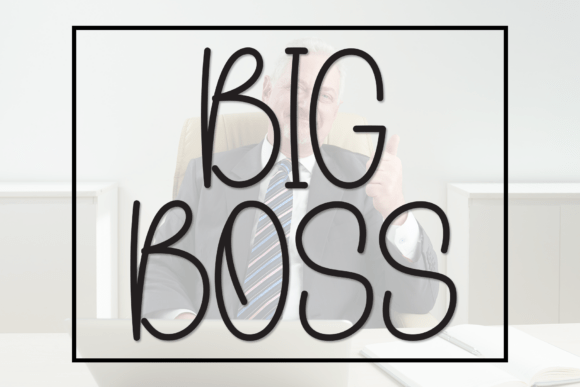
The Big Boss Font: A Game-Changer for Your Design Projects
I’ll never forget the time I was working on a branding project for a high-end architecture firm. My client was specific about wanting a font that exuded professionalism, yet had a personal touch. I scoured the internet, tried countless fonts, but nothing seemed to fit the bill. That was until I stumbled upon the Big Boss font. It was like a breath of fresh air – tall, authoritative, and oh-so-legible. In this article, I’ll share my love for this amazing display font, its features, and how to make the most of it in your design projects.
A Closer Look at Big Boss
Big Boss is a stunning display font designed with a clean, monolinear aesthetic. Its vertically elongated letterforms, consistent stroke weight, and smooth, rounded joins make it a perfect fit for corporate personal branding, modern business headers, architectural title blocks, and impactful editorial signage.
Here’s what I love about Big Boss:
• ✨ Clean and professional look: The font’s monolinear design gives it a sleek, modern feel that’s perfect for high-end branding projects.
• ✅ High legibility: Despite its elegant design, Big Boss remains highly legible, even at smaller font sizes.
• 💼 Versatile: This font is suitable for a wide range of design projects, from business headers to editorial signage.
And, of course, no font is perfect. Here are a few quirks to keep in mind:
• 🤔 Limited use of OpenType features: While Big Boss does offer some OpenType features, it’s not as extensive as some other fonts.
• ⚠️ May not work well with longer texts: Due to its elegant, display-focused design, Big Boss might not be the best choice for longer texts or body copy.
The Story Behind Big Boss
Big Boss was designed with the modern business professional in mind. Its creator aimed to craft a font that exuded professionalism, yet had a personal touch. The result is a stunning display font that’s perfect for making a statement.
What is Big Boss font best used for? Big Boss is ideal for corporate personal branding, modern business headers, architectural title blocks, and impactful editorial signage.
Can I use Big Boss for my logo? Absolutely! Big Boss is perfect for logos, especially those that require a professional, yet approachable feel.
Does Big Boss support OpenType features? Yes, Big Boss offers some OpenType features, including glyphs and stylistic alternates.